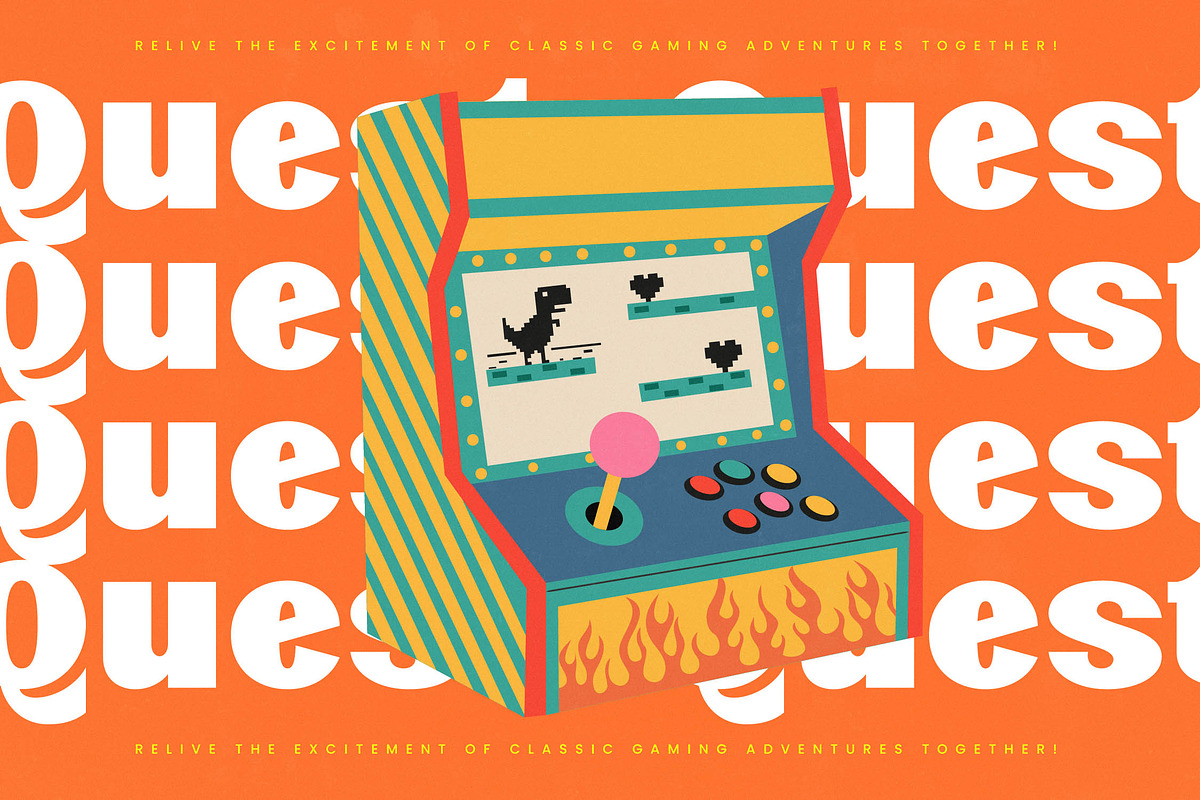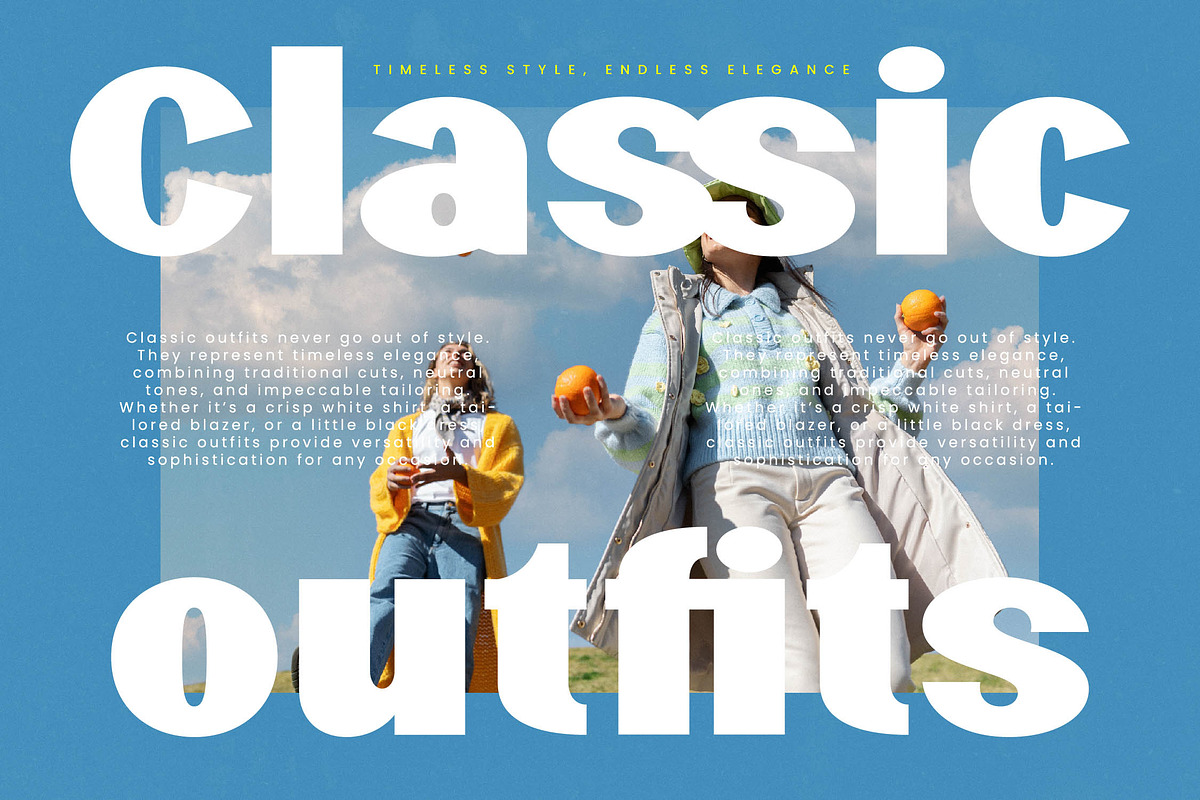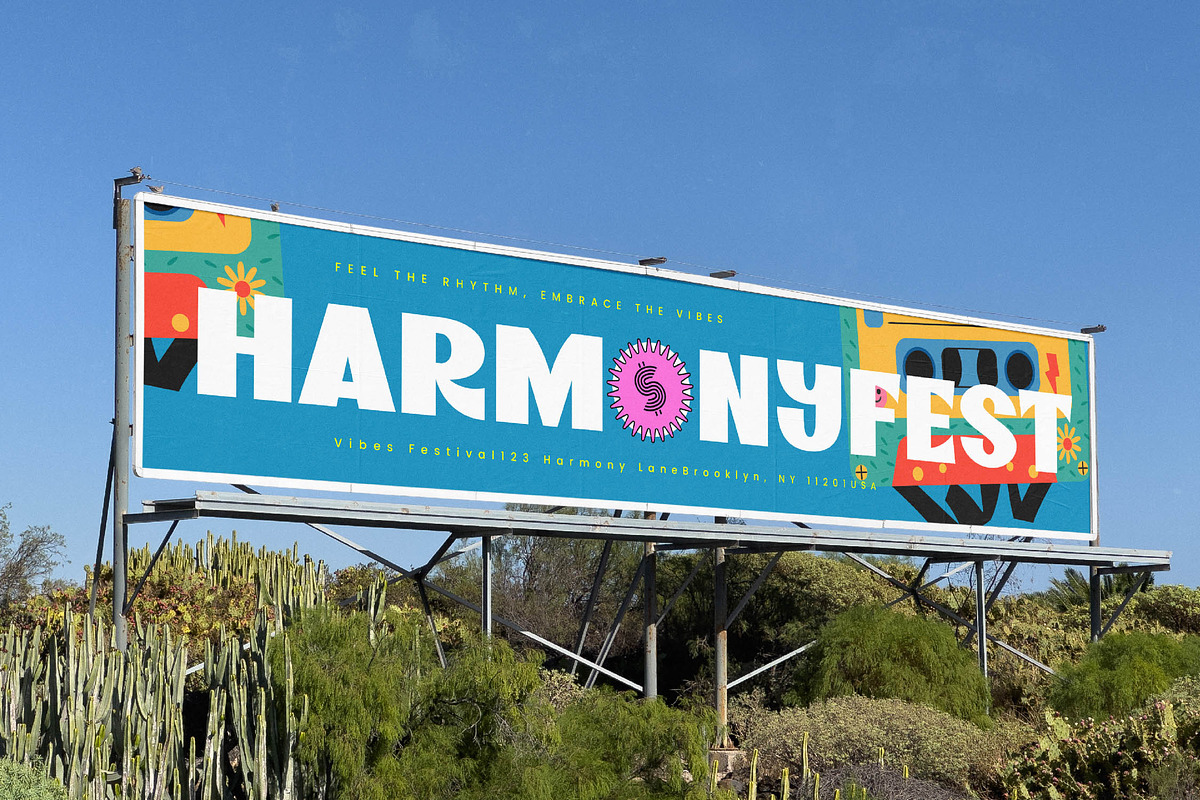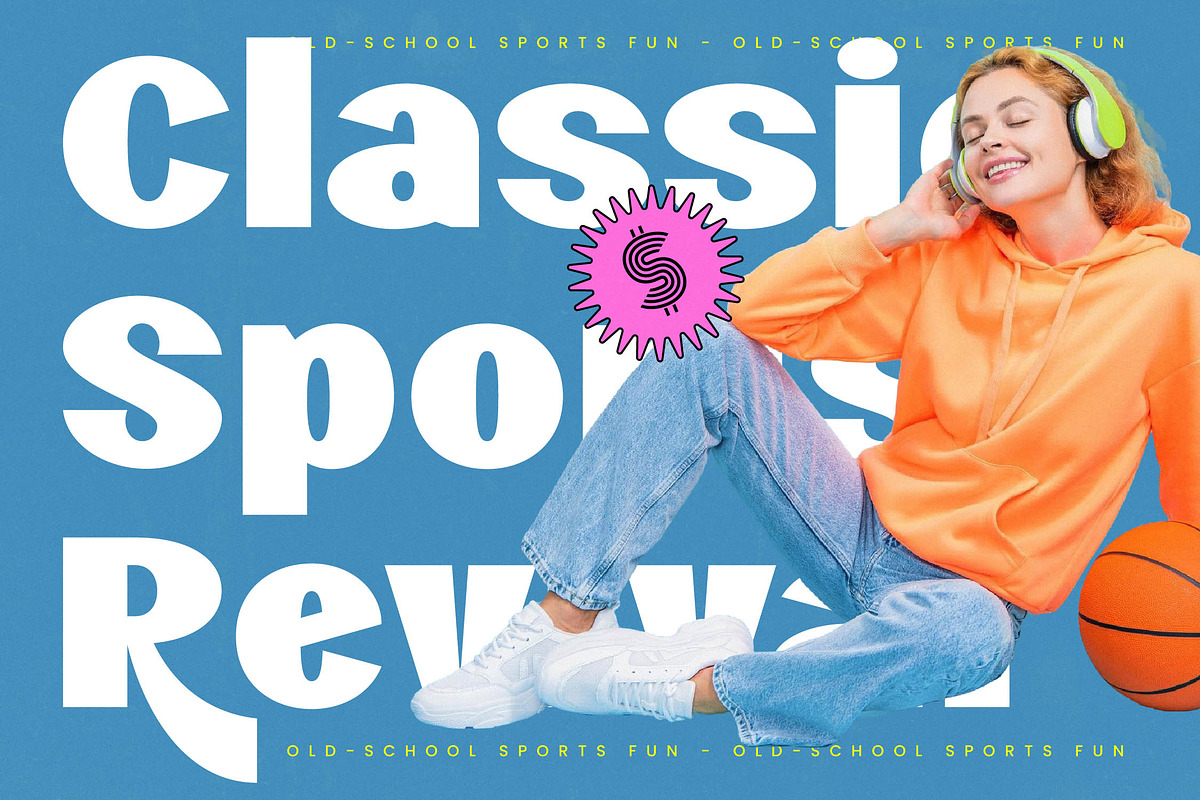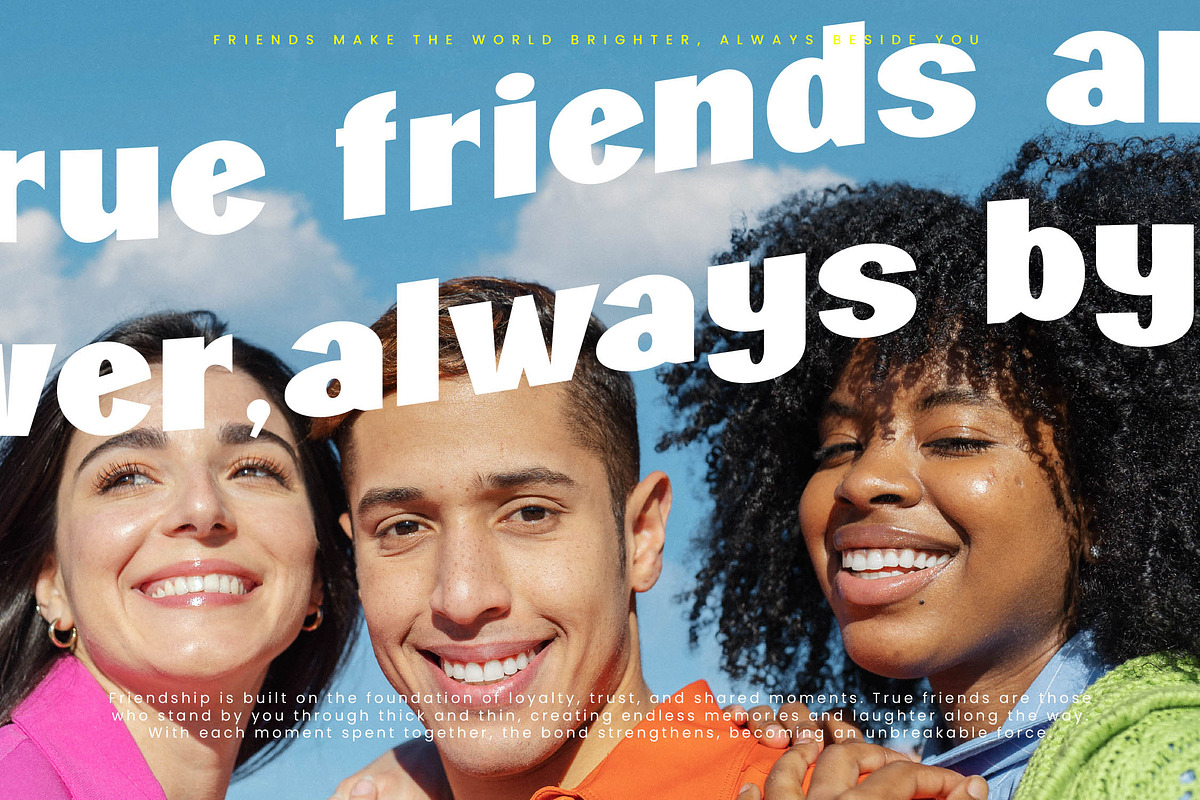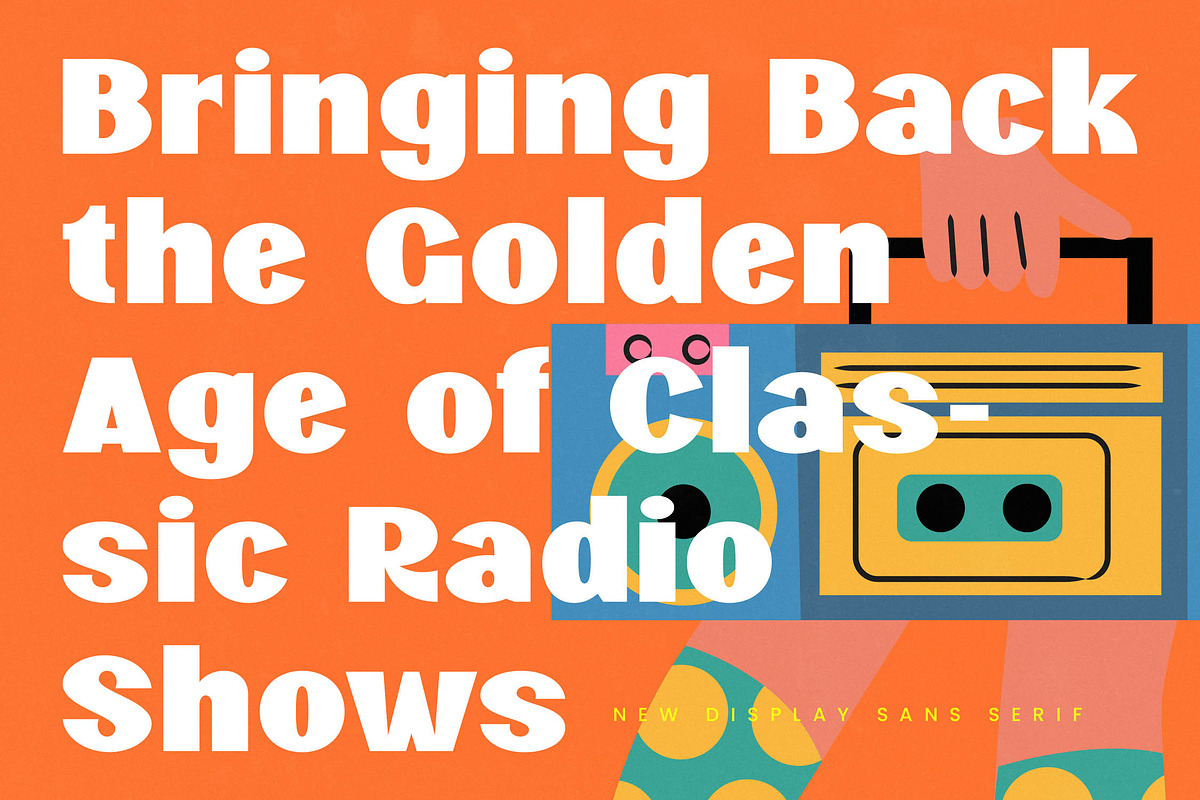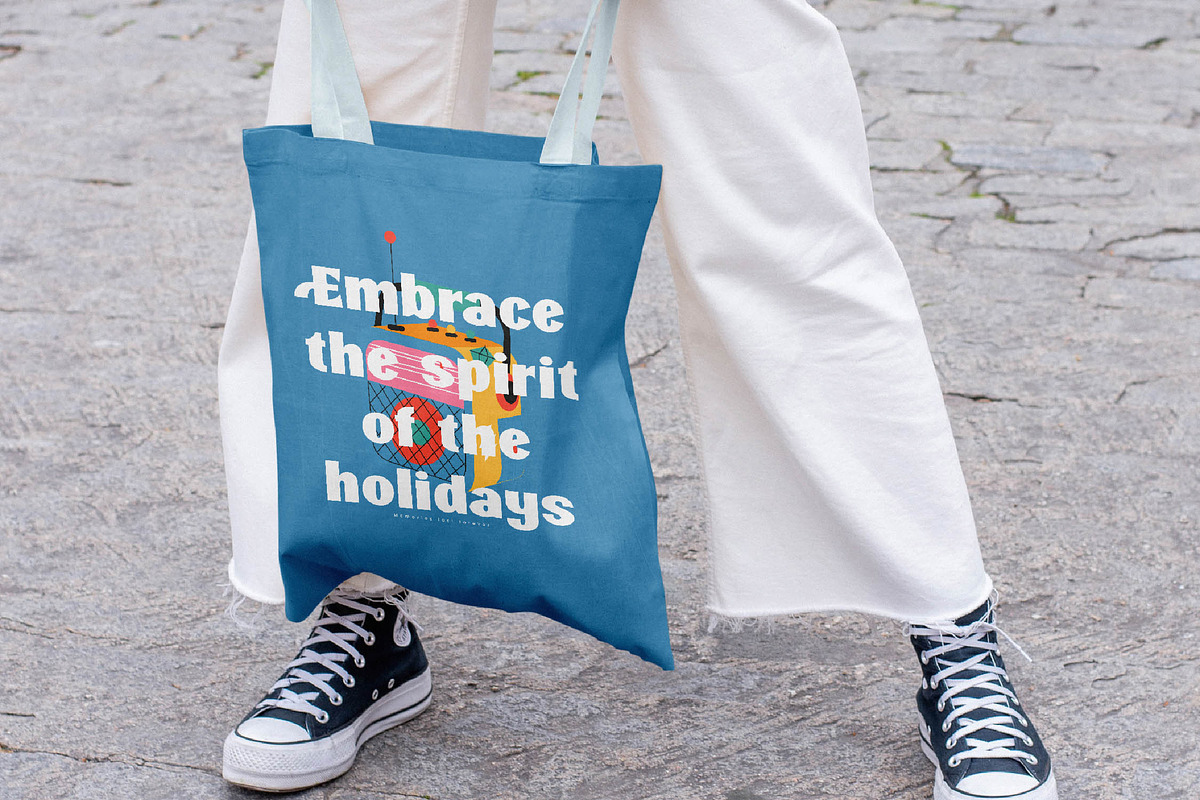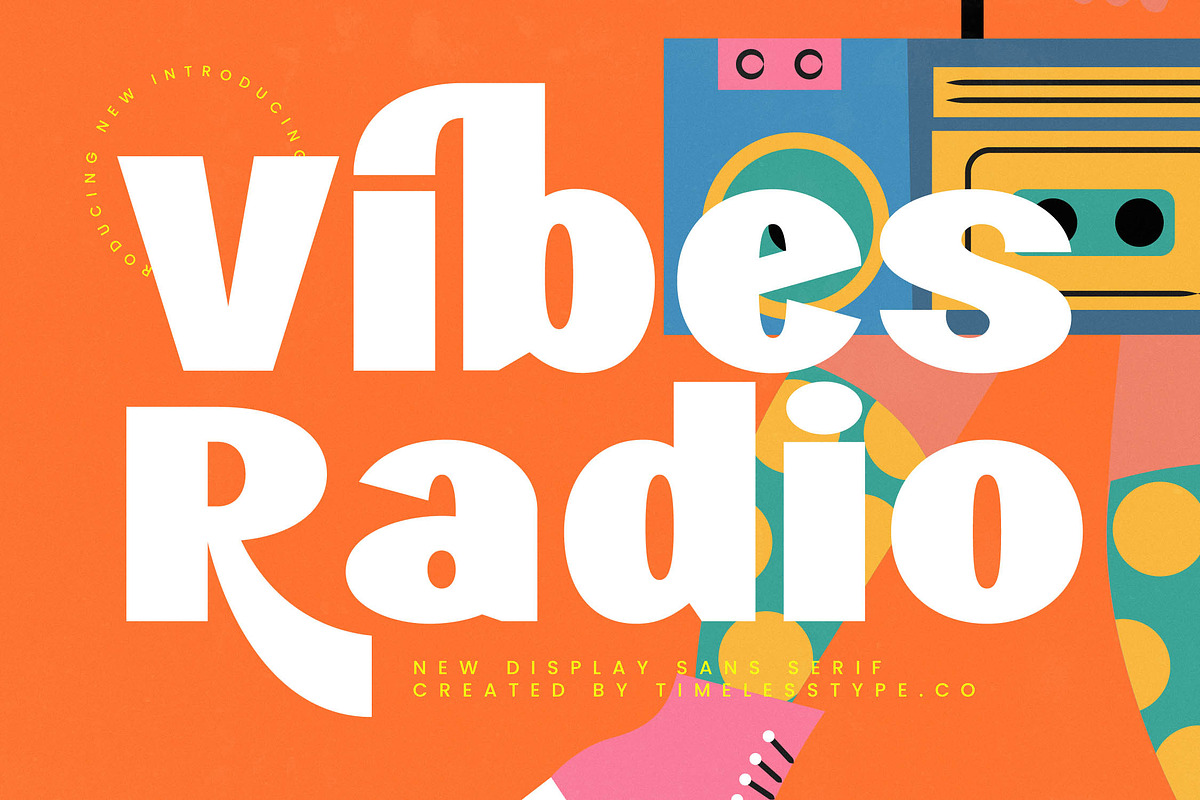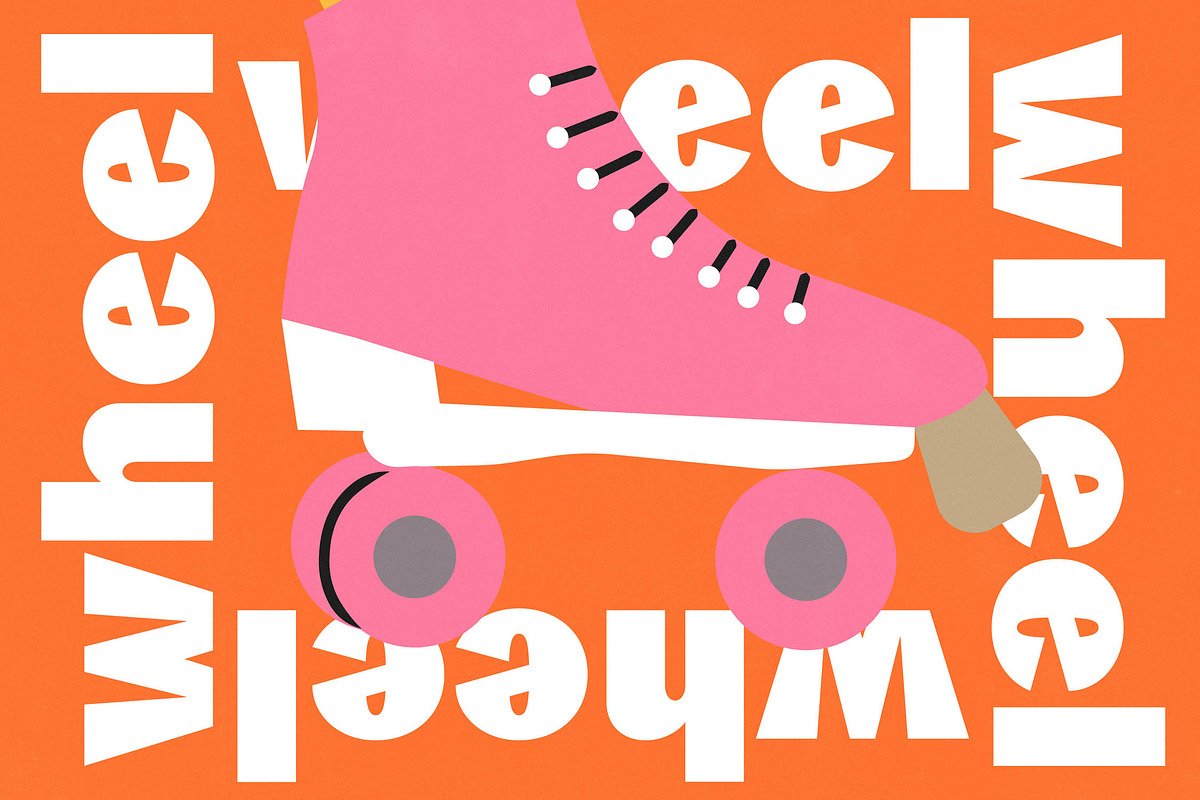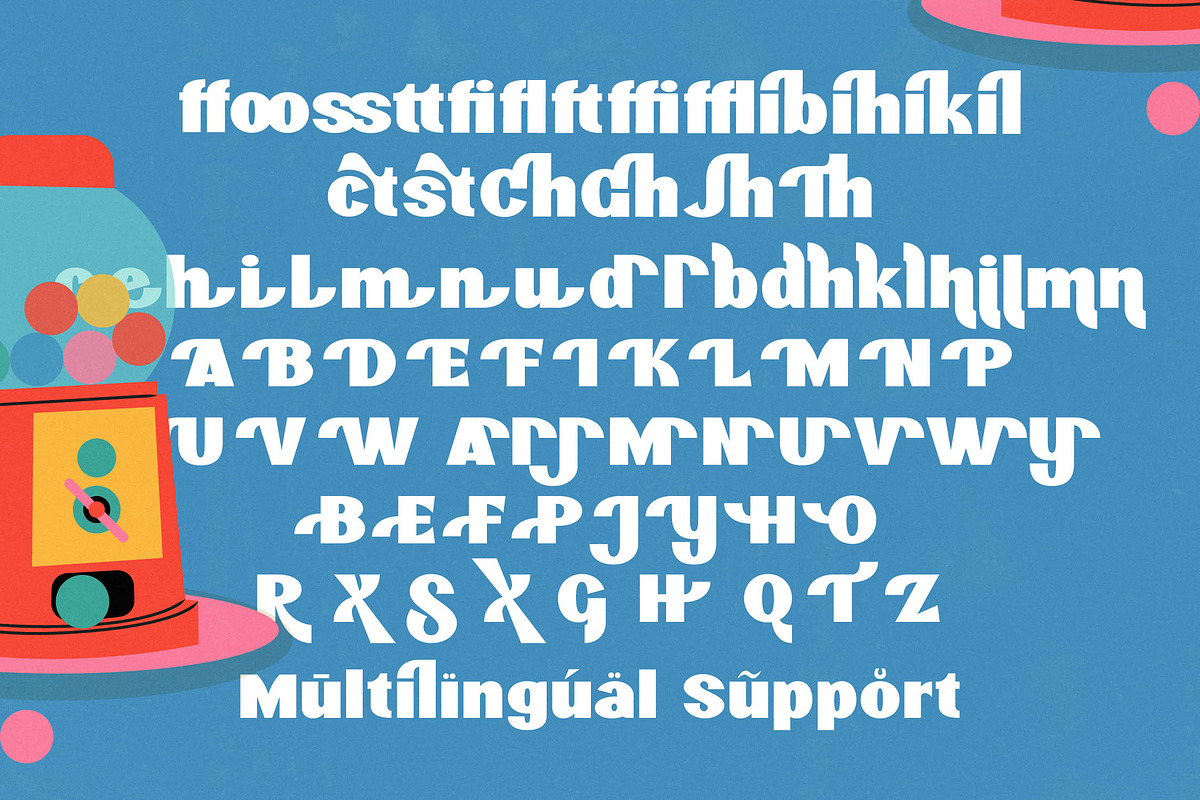
Vibes Radio - Bold Retro Display
Step into a world of rhythmic energy and vibrant nostalgia with Vibes Radio New, a typeface that pulses with the heart of a golden era. This font is designed to turn up the volume on your creative projects, offering a visual symphony of bold strokes and playful curves.
Inspired by the analog warmth of 1970s cassette tapes and the boombox culture of the 80s, this font captures the essence of a bygone musical revolution. It brings a sense of joyful rebellion and colorful storytelling to the digital age, evoking memories of neon lights and vinyl records.
With its undeniably confident presence, this modern serif display alternative commands attention through its high-contrast serif elements and luxury typography weight. It is an essential editorial font for those who prioritize a massive branding impact and want their message to resonate with a trendy, upbeat frequency.
Aligning perfectly with the modern serif trend, this typeface bridges the gap between classic funk and contemporary aesthetics. It stands at the forefront of editorial display fonts, providing character-driven typography that meets the needs of today's most daring and influential designers.
The versatility of this typeface makes it a powerhouse for logo design and high-energy branding campaigns that need a retro spark. Whether you are working on editorial layouts, vibrant packaging, unique wedding invitations with a twist, or bold fashion lookbooks, it delivers a consistent and cool aesthetic.
The package is packed with professional assets, including a wide array of unique ligatures and creative alternates to customize every word. It also features expansive multilingual support and international characters, ensuring your message can be broadcast to a global audience without losing its soulful edge.
- Ligature 19 Alternate 61